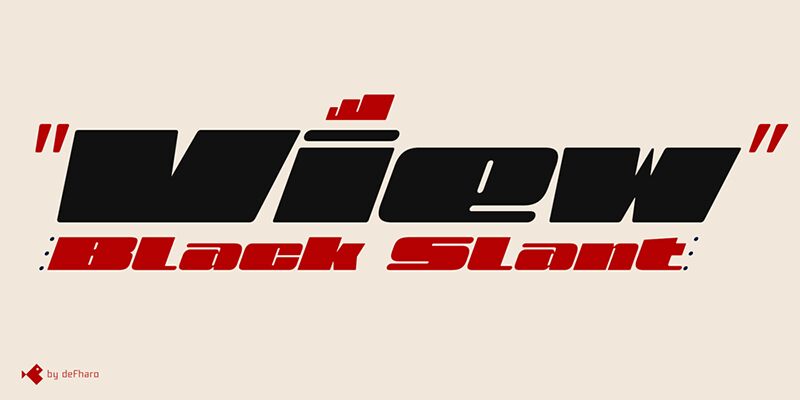
View font, created by deFharo, is an ultra-modern techno-inspired free font with a contemporary touch. Its smooth transitions and dynamic, streamlined design give it a futuristic edge, making it ideal for projects that demand a cutting-edge feel.
Compact, geometric, and assertive, View is perfect for adding a tech-inspired flair to your work. Use this font for tech branding, sports apparel, digital projects, posters, futuristic films, website headers, app designs, gaming interfaces, banners, or product packaging. It’s suitable for any application that needs a sleek and innovative appearance.
View is designed to stand out, make an impact, and dominate any visual space with elegance.
Its exaggeratedly wide proportions and bold weight do not ask for permission; each letter is a statement of presence, an explosion of character that does not go unnoticed. It is crafted for those who appreciate the influence of super-thick and extra-wide typefaces.
The shapes of this font convey pure power, striking a perfect balance between the strength of the Roman style and the dynamism of the Slanted version. It is ideal for headlines that wish to be heard, brands that want to stand out, or designs that demand character.
Available in two versions—Roman and Slant—View is a font that fuses the strength of a powerful stroke with the elegance of refined details.